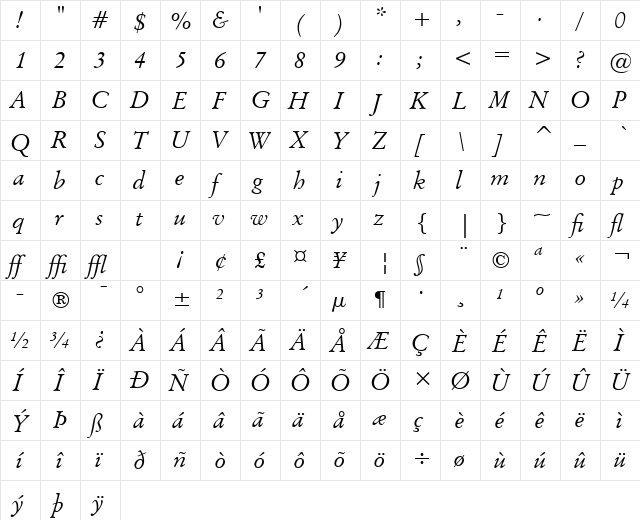
Baramond Italic
Design Context for Baramond Typeface
Baramond is a composed and adaptable typeface that performs quietly and consistently across a wide range of design contexts. Its italic angle brings a sense of urgency and motion to the letterforms.
Pro Tip: Try Baramond for annotation and caption copy alongside an upright companion — the contrast in angle creates a dynamic but ordered typographic system.